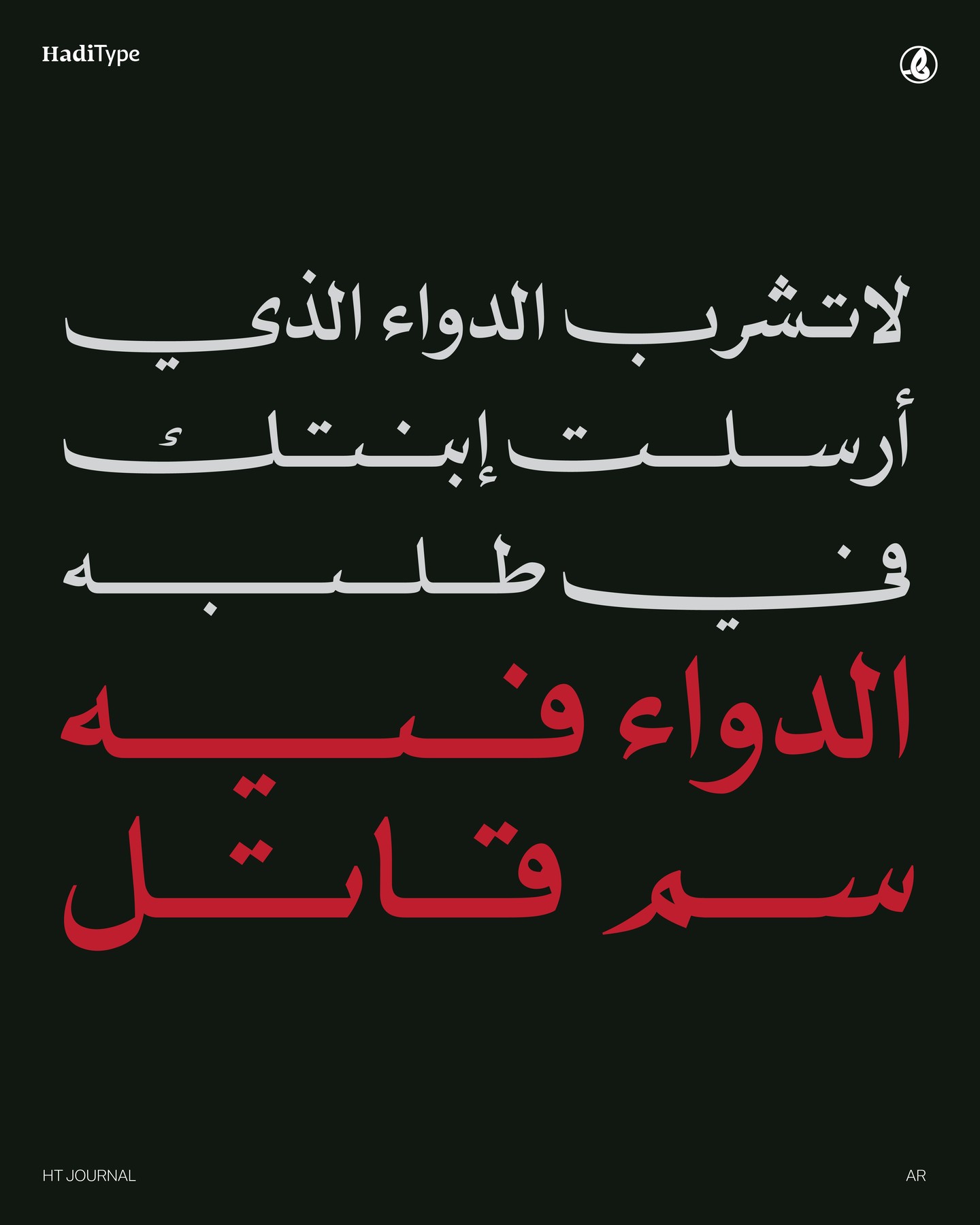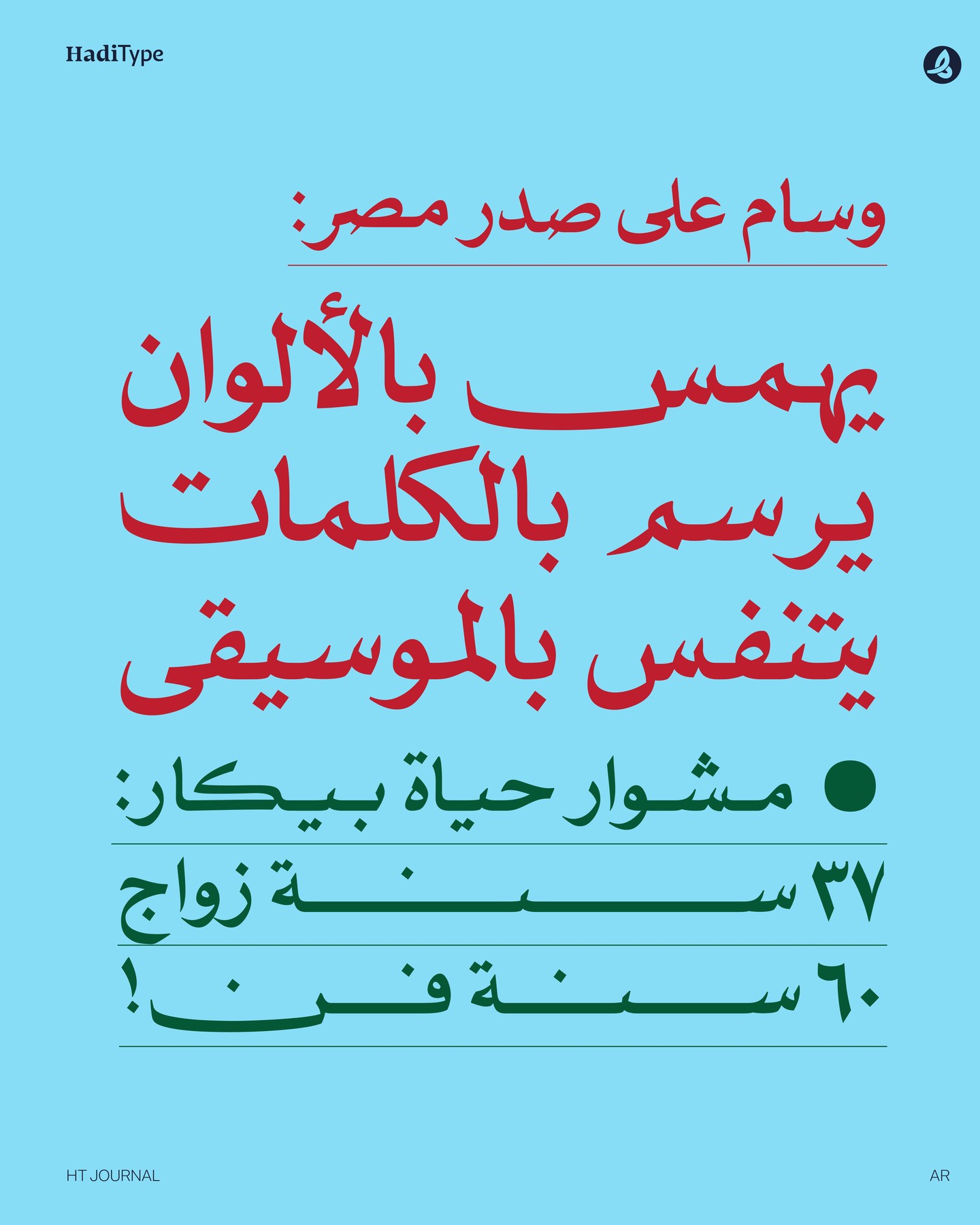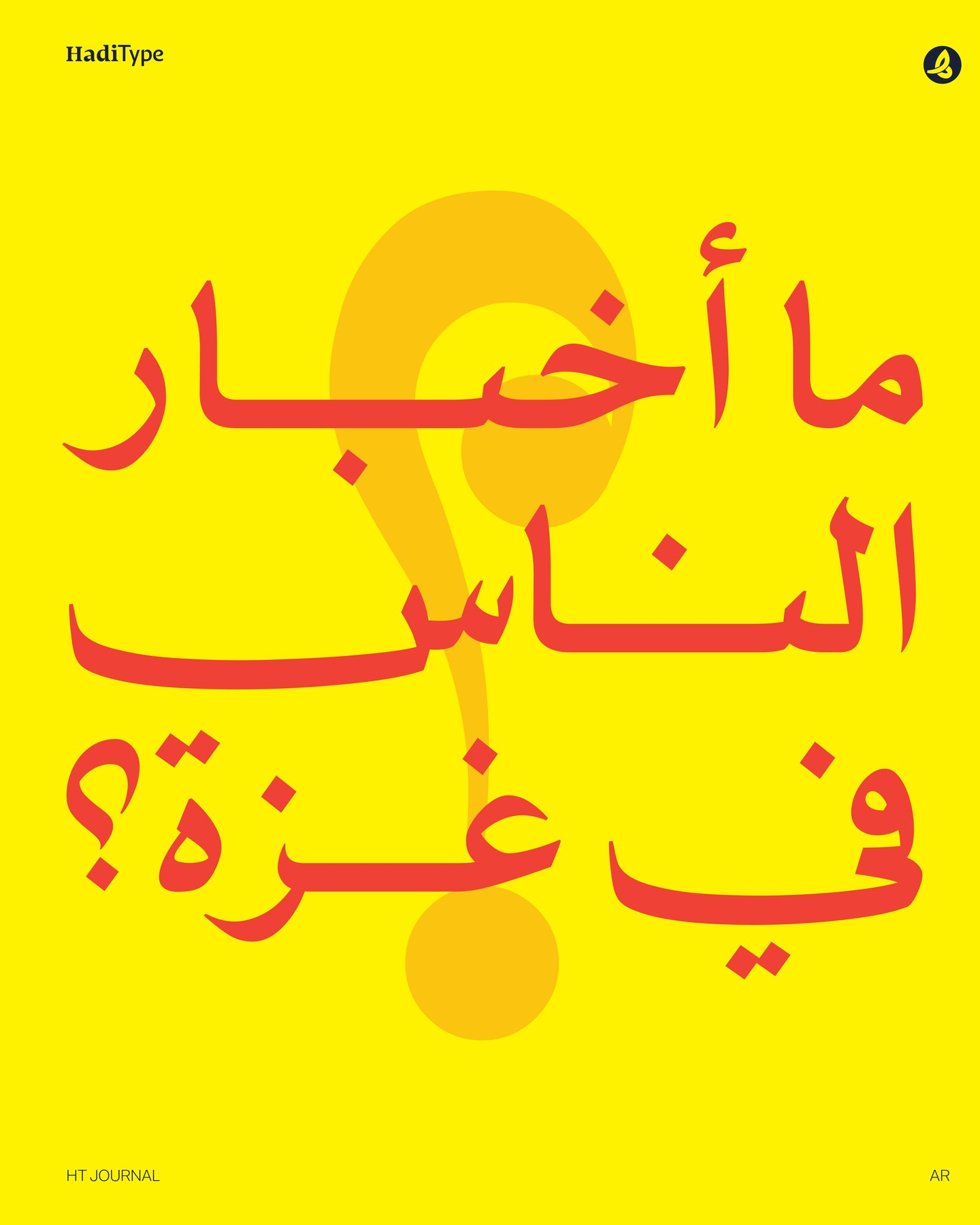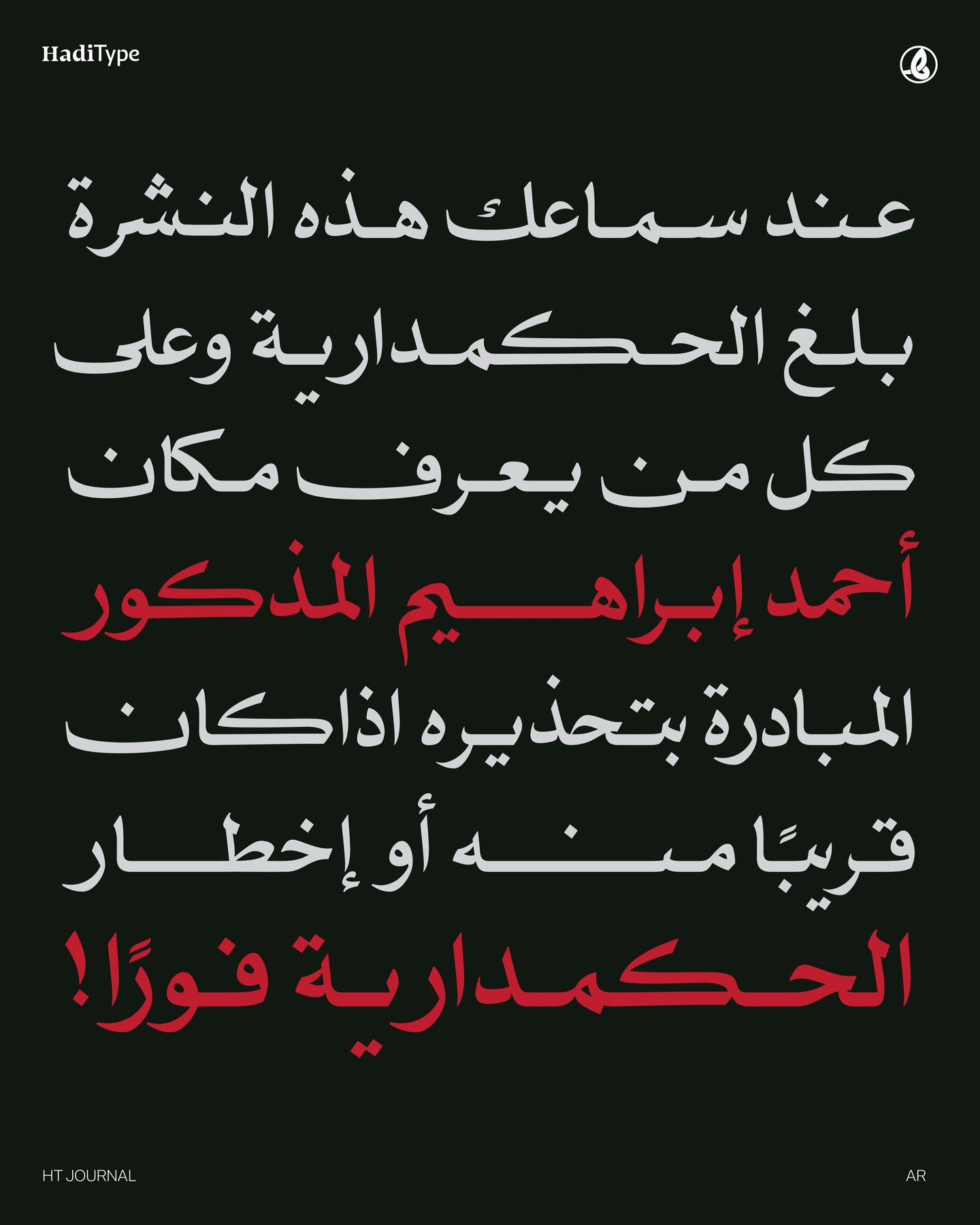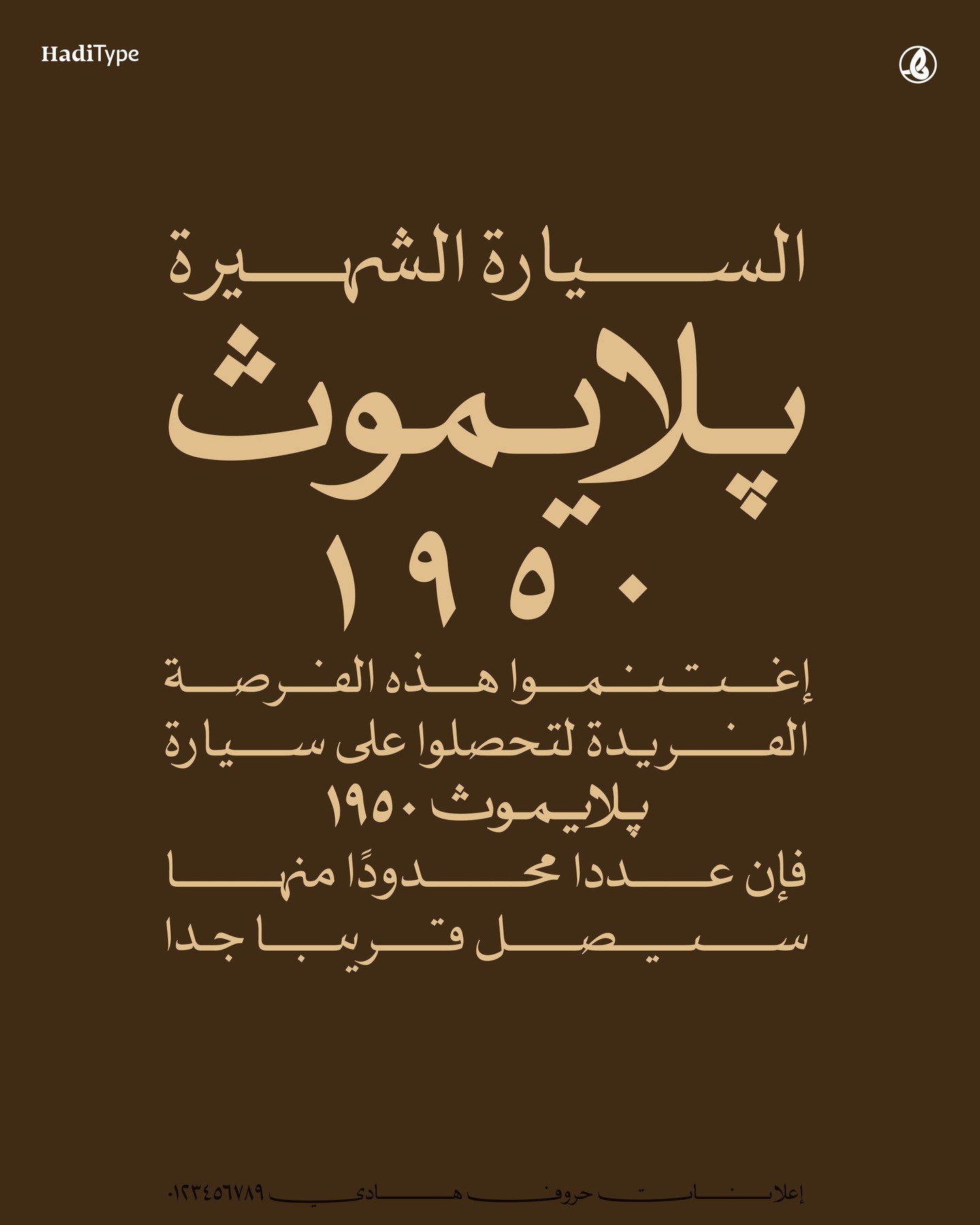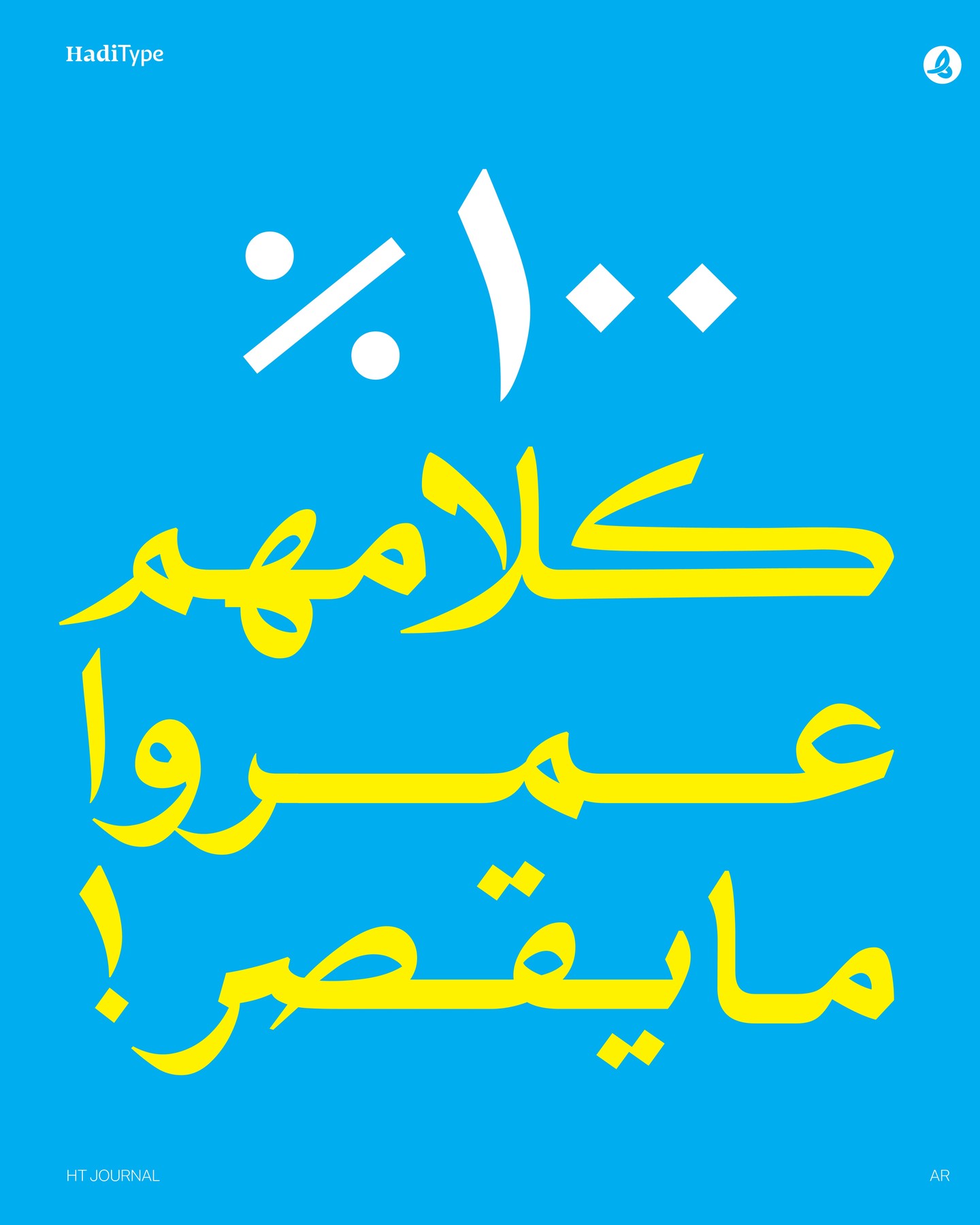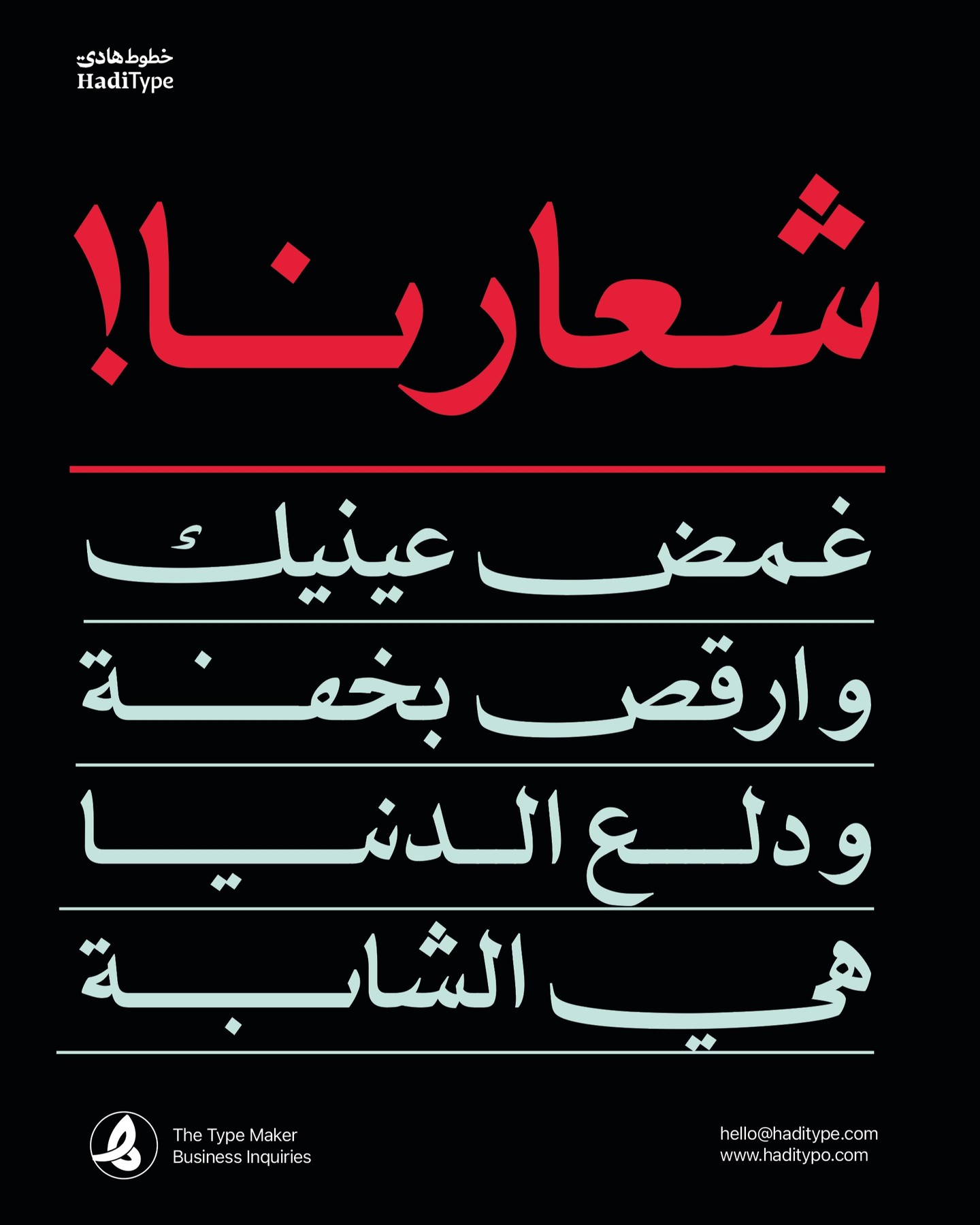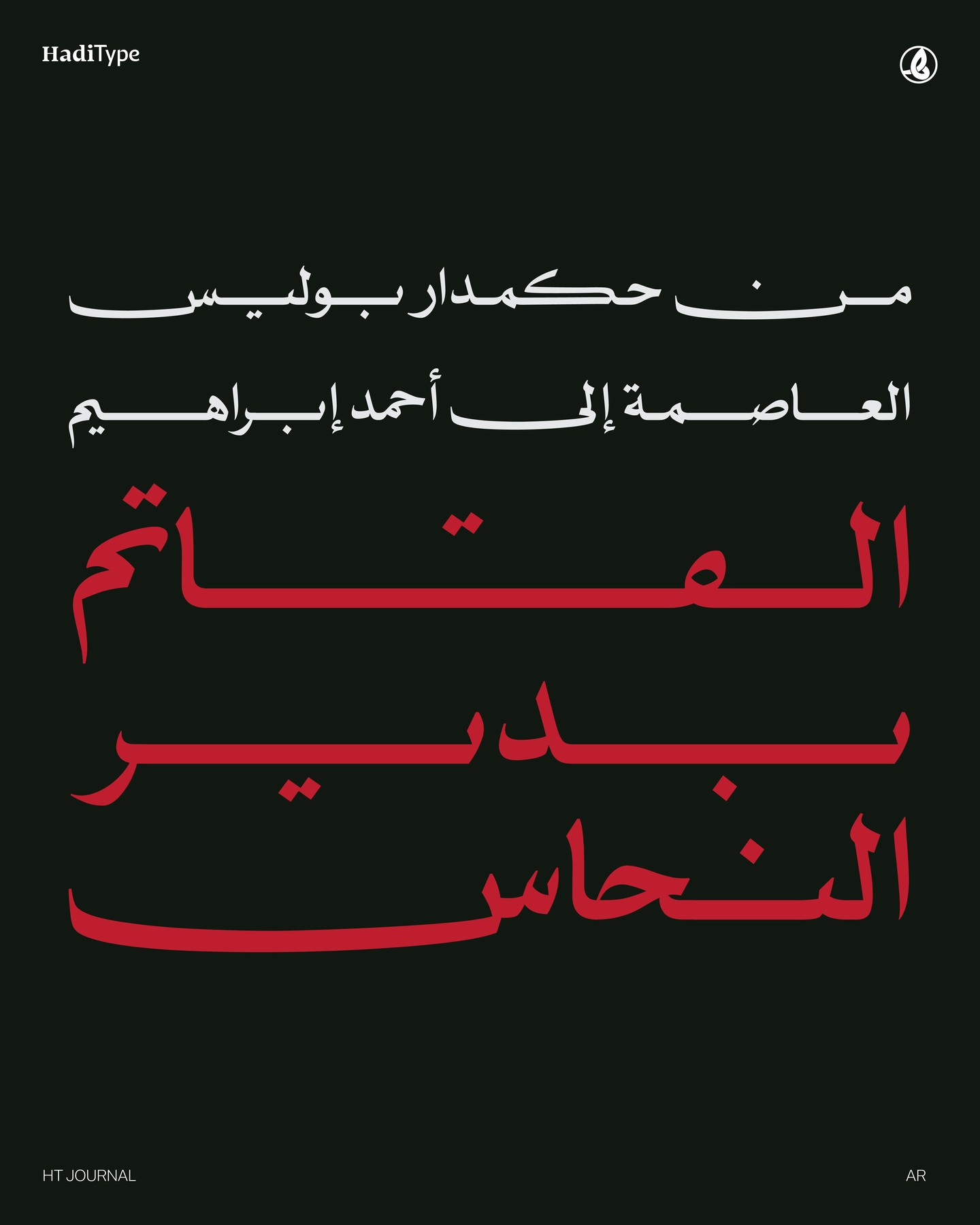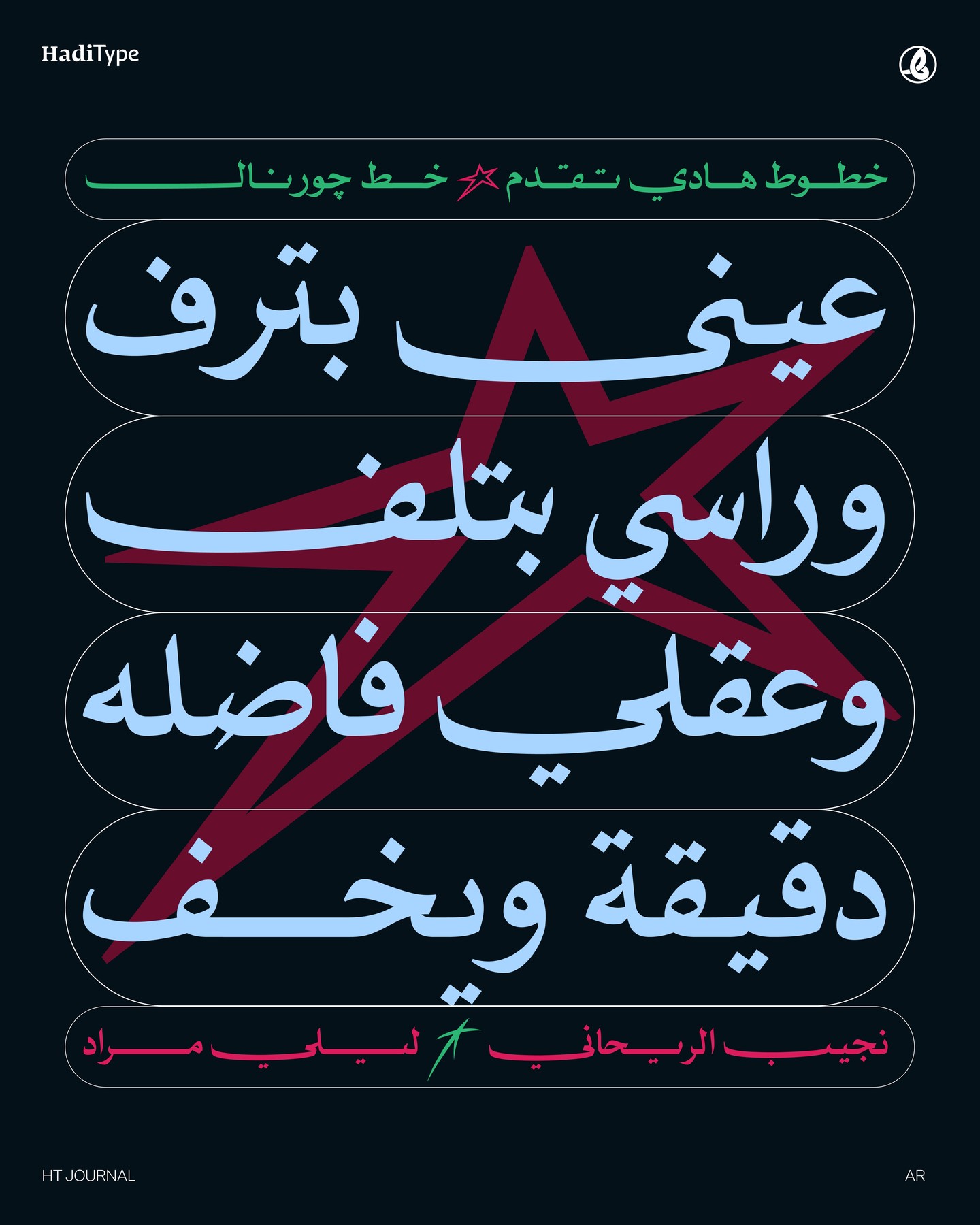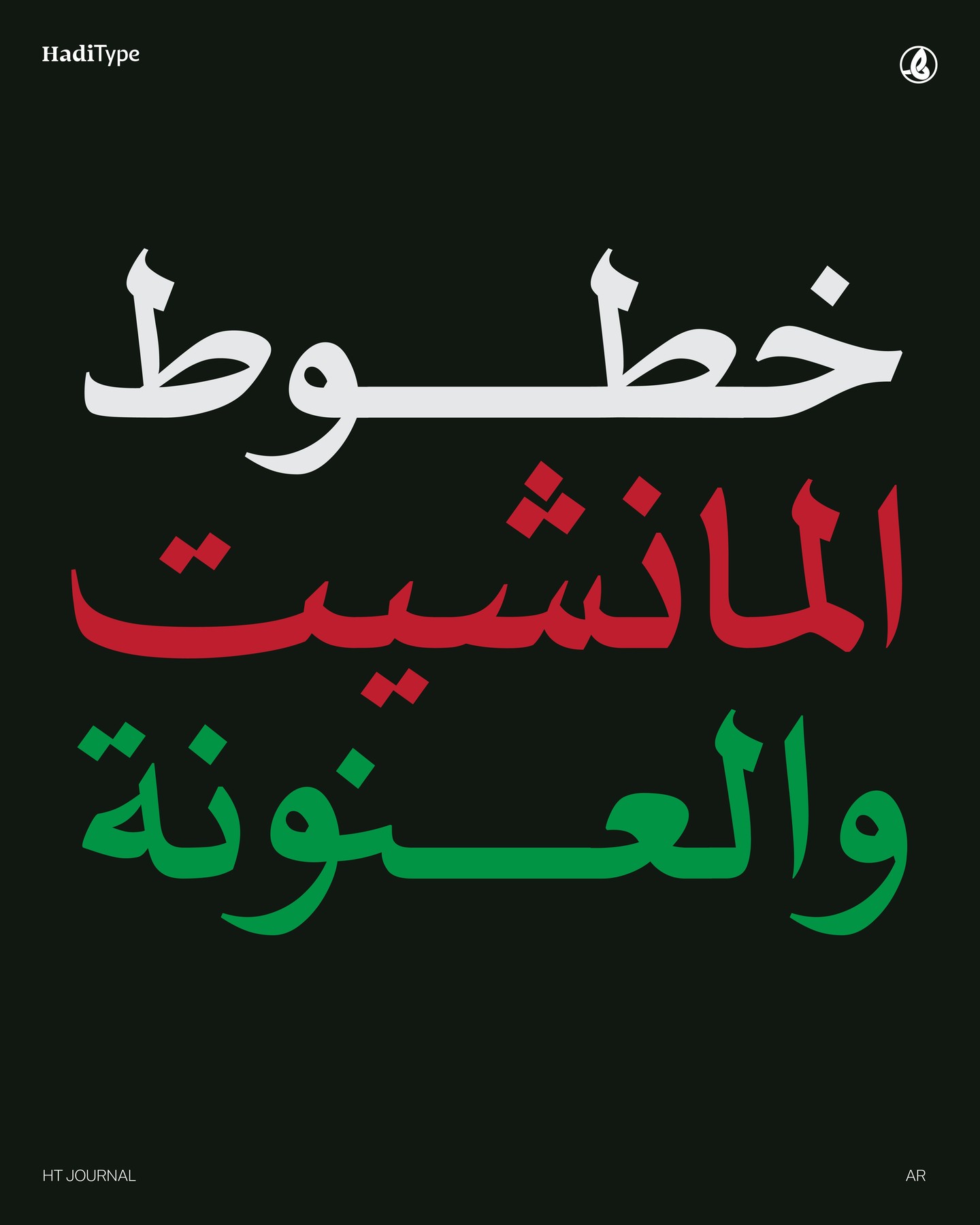
HT Journal
"HT Journal" is a new Arabic font inspired by distinctive newspaper headlines in Egypt from the 1960s to the 1980s.
The font comes in a single weight and utilizes variable font technology to achieve unique diversity among various transmitted characters.
Designer: Muhammed Hadi
Foundry: HadiType Foundry